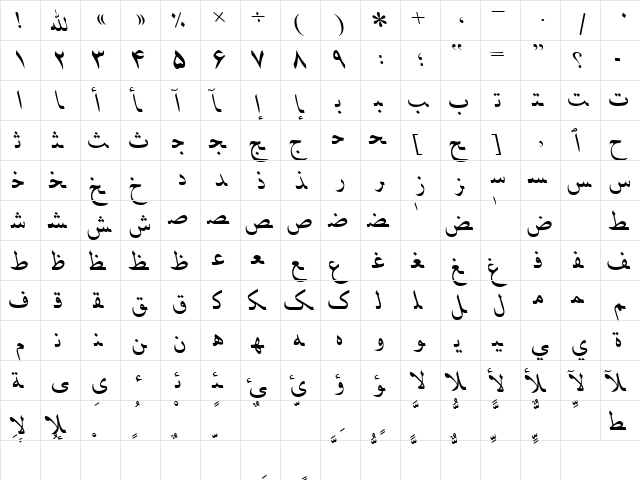
PersianNaskhSSK Italic
Design Context for PersianNaskhSSK Typeface
PersianNaskhSSK offers clean, dependable letterforms without strong stylistic allegiance, making it a practical choice for designers who need flexibility. The dynamic lean of this cut emphasises speed and emphasis in any layout.